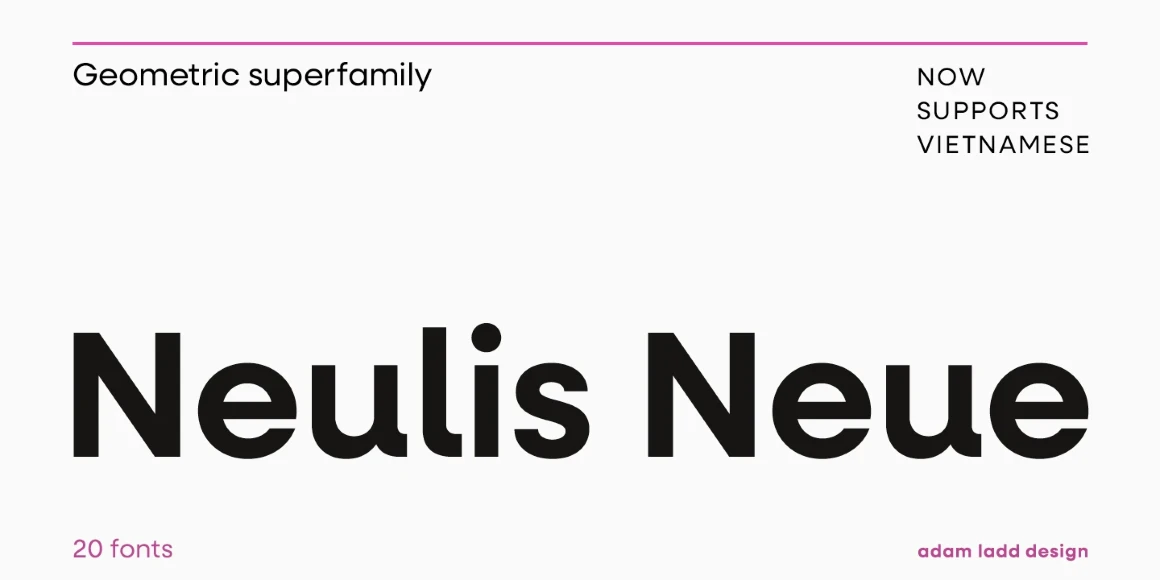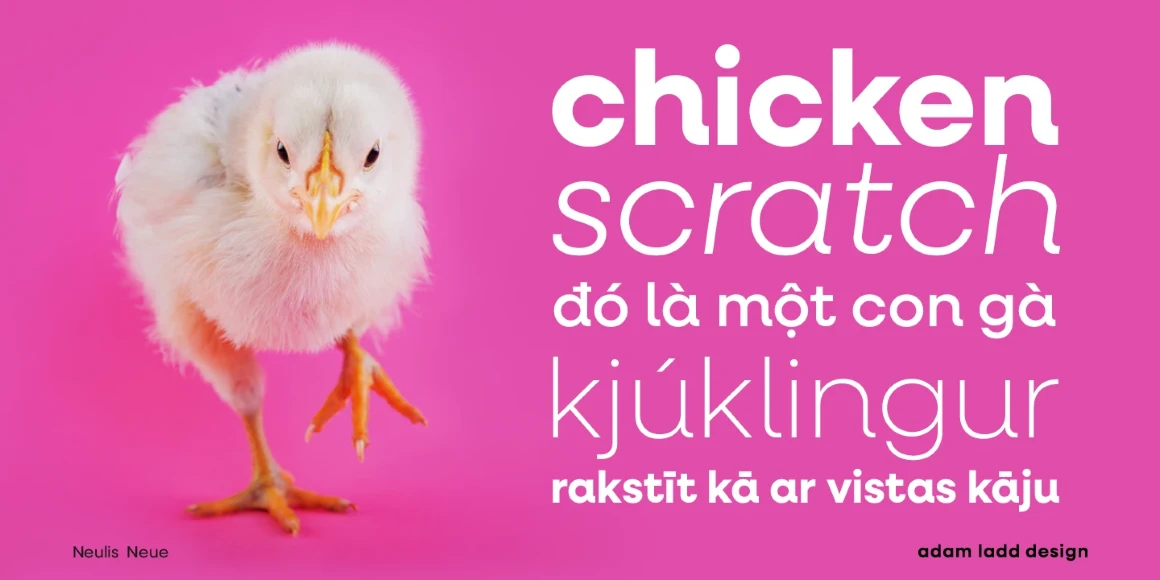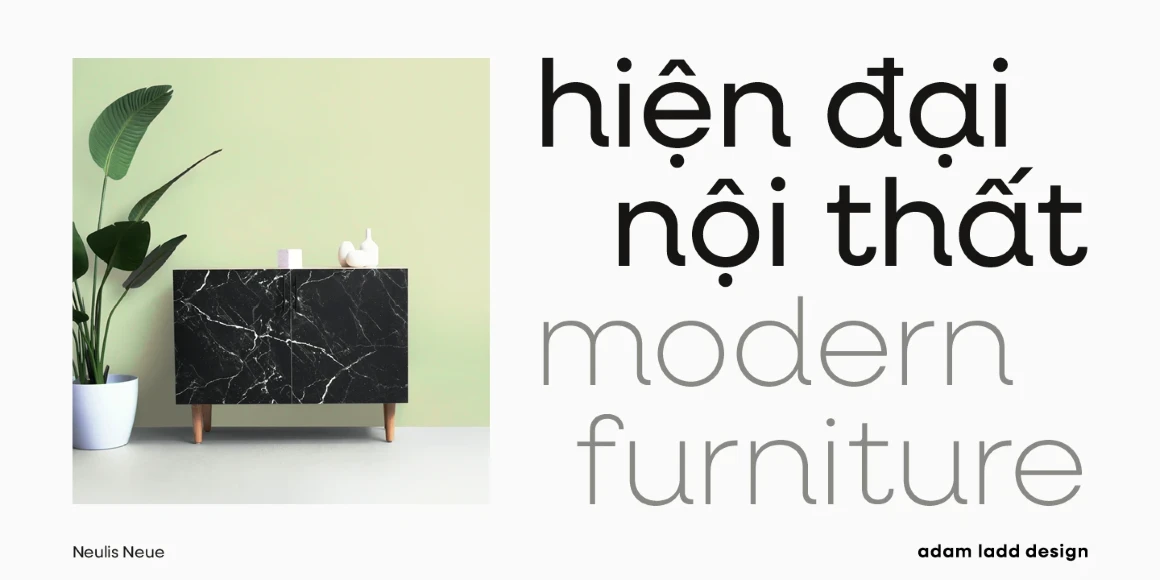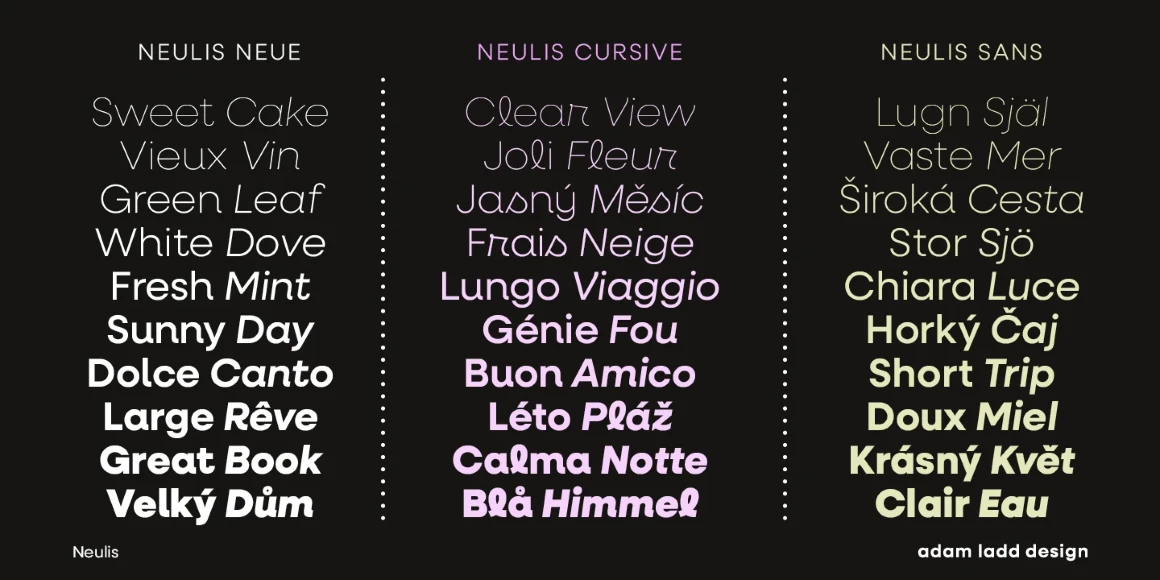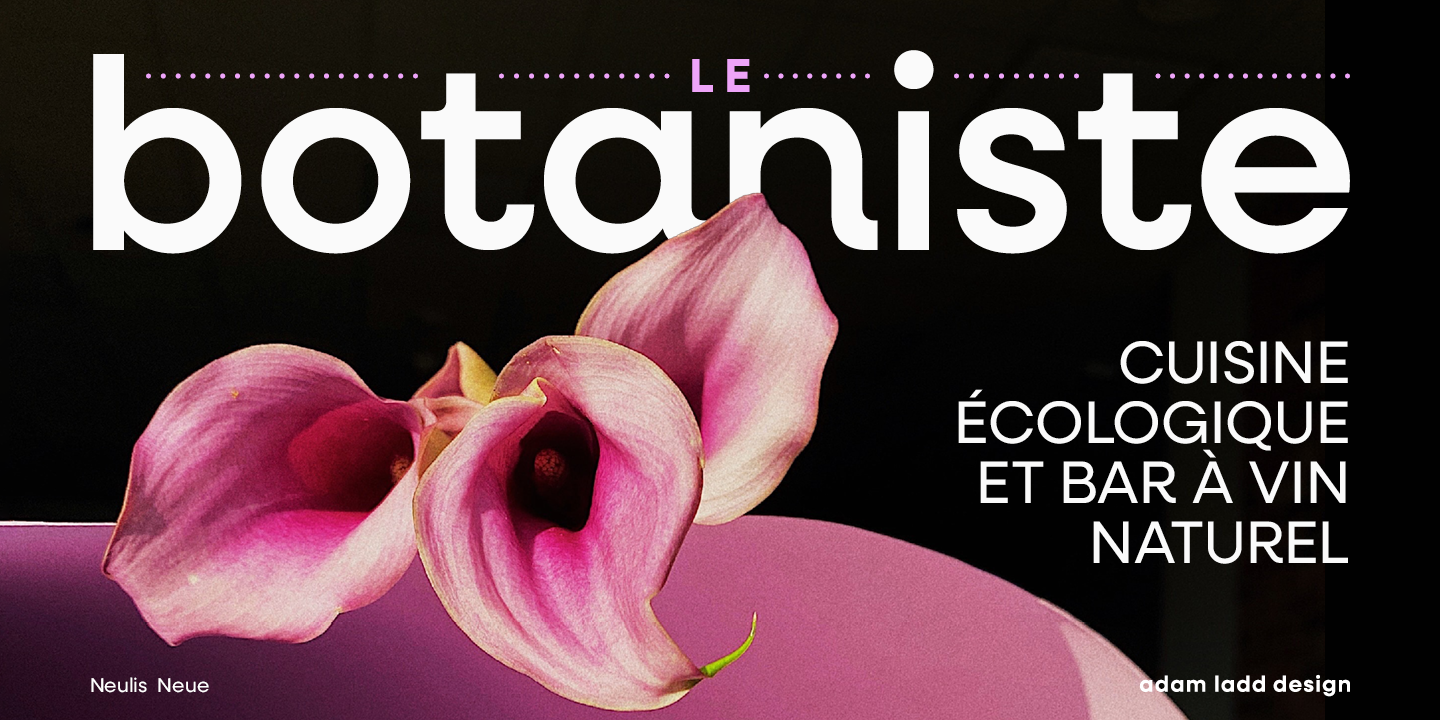
Neulis Neue
By Adam Ladd
Neulis Neue, Neulis Cursive, and Neulis Sans are, to varying degrees, a mash-up of a geometric sans serif and jovial upright script. Neulis Neue, once Neulis Alt, is pleasantly warm thanks to a handful of primary letterforms. Neulis Cursive, formerly Neulis, is the most playful of the bunch — punctuated with script-like letterforms. And Neulis Sans, brand new to the family, is geometric and dependable. Think of the three families on a dial; how much fun do you want to inject into your project?